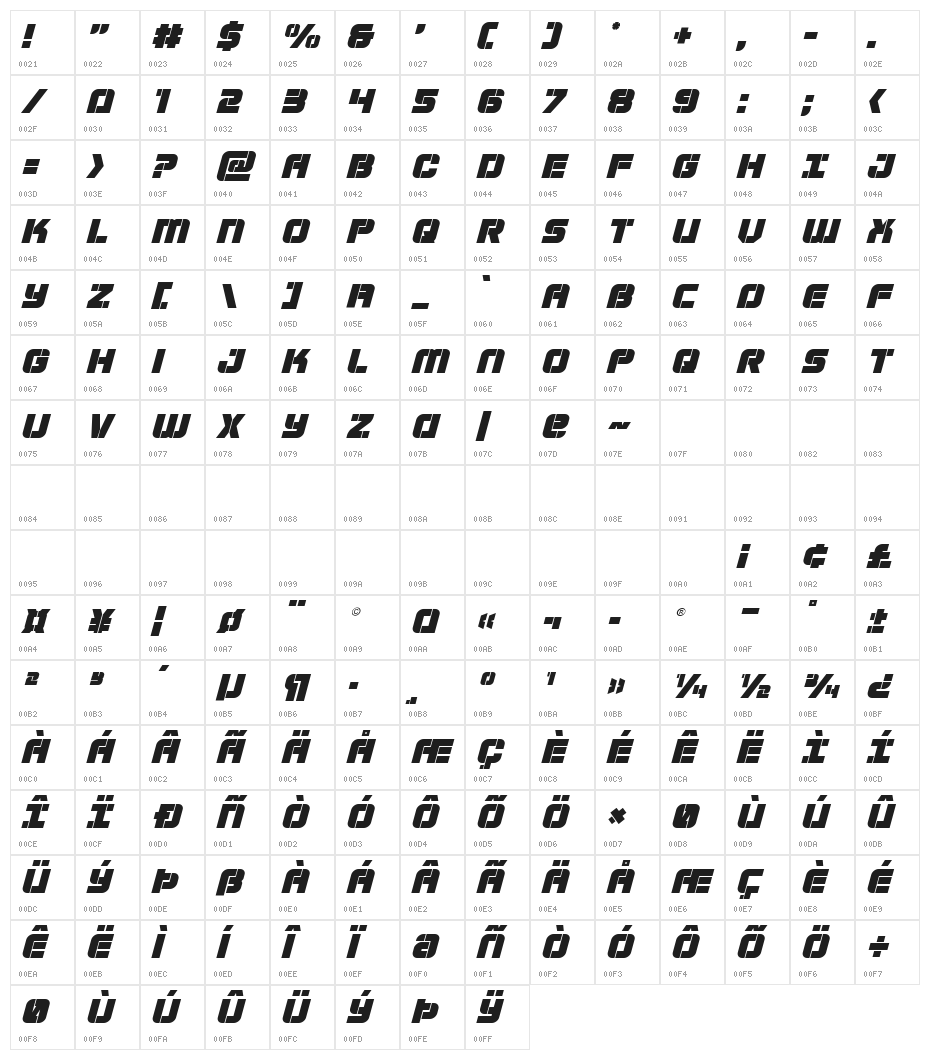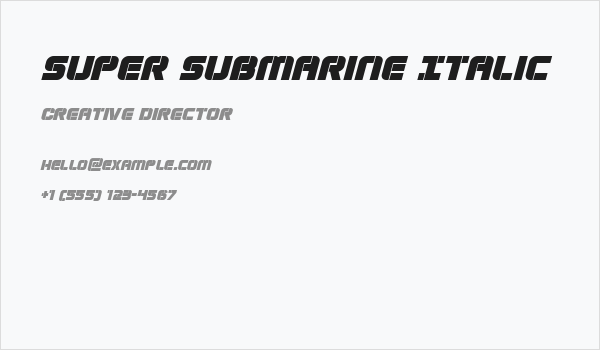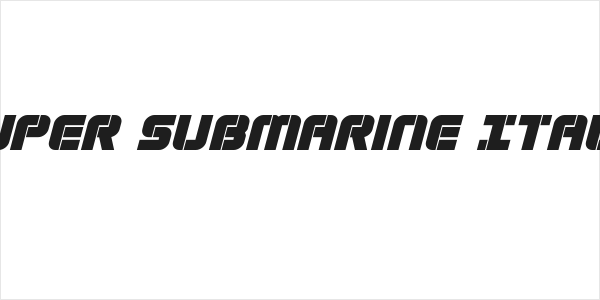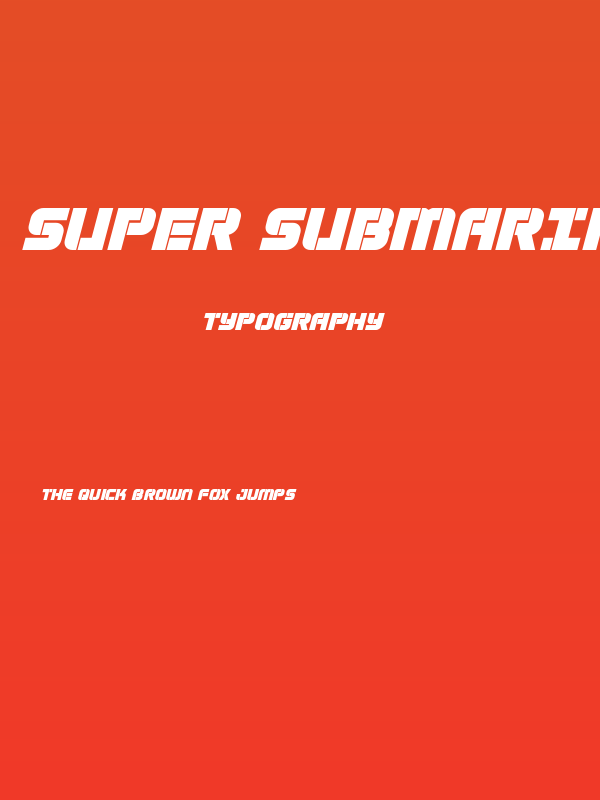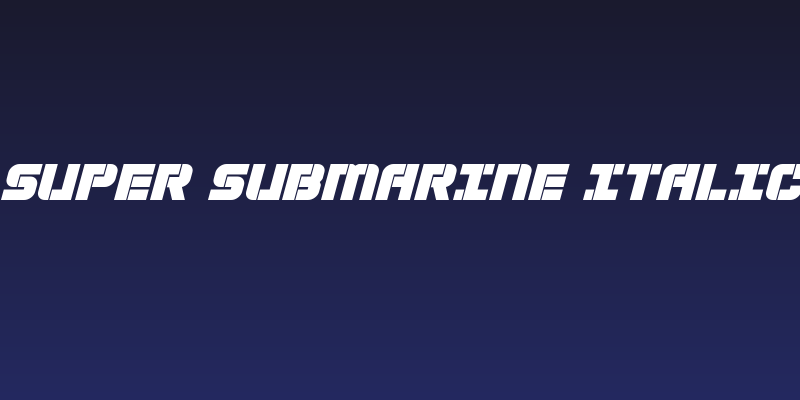
Super Submarine Italic Font
Super Submarine Italic Description
This font features a bold, italicized style with a futuristic and dynamic appearance. The characters are designed with sharp angles and a forward-leaning slant, giving the text a sense of motion and speed. The uppercase and lowercase letters maintain a consistent geometric form, with some characters exhibiting unique cuts and edges that enhance the modern aesthetic. The numerals and special characters follow the same design principles, ensuring uniformity across the typeface. The overall look is striking and impactful, making it suitable for attention-grabbing headlines and designs.